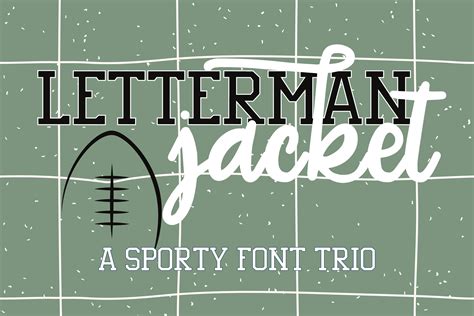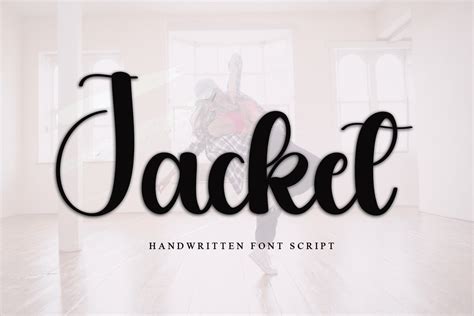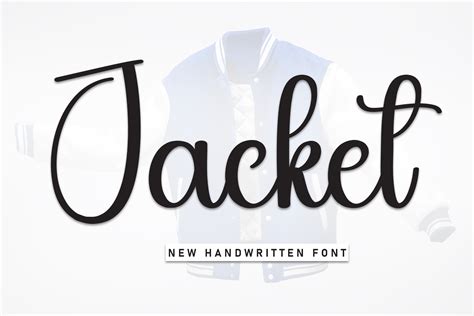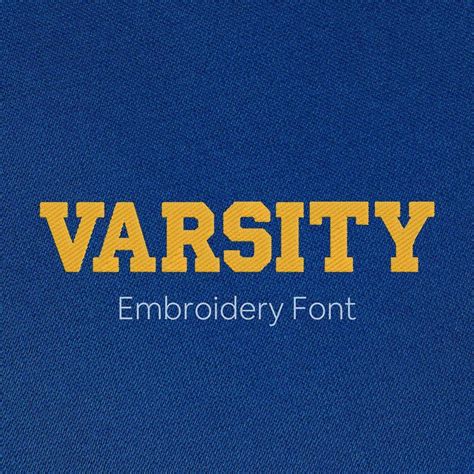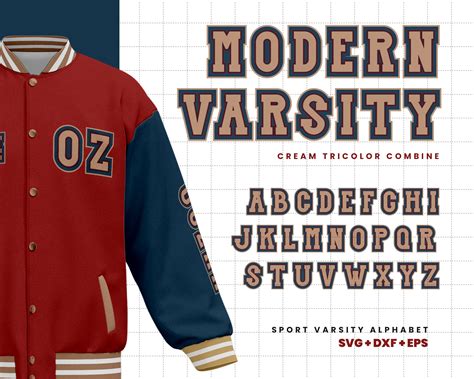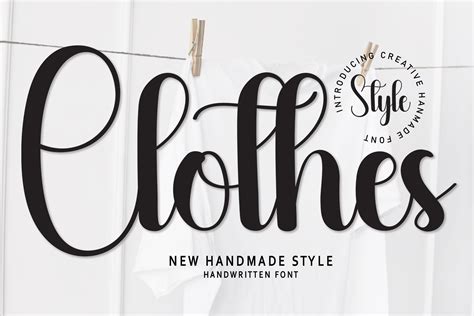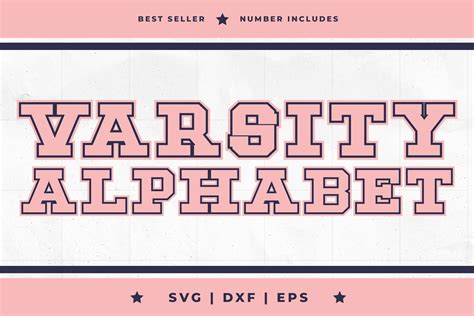
Choosing the perfective typeface for crown design is a critical decision that influences how your marque, team, or personal style is perceived by the world. Whether you are creating a custom varsity jacket, a sleek windbreaker, or a high-end leather piece, the composition move as the optical voice of the garment. A font does more than just display letters; it convey dominance, heritage, strenuosity, or mod reductivism. When selecting a font for dress, you must reckon fabric texture, embroidery restriction, and the overall esthetic goal of the design. This guide will facilitate you navigate the nuance of choosing the right inscription to check your jacket stands out with professional-grade encroachment.
Understanding Typography Styles for Apparel
Before plunk into specific recommendation, it is indispensable to understand the class of fonts that perform best on fabric. Not every typeface that looks full on a calculator blind translates good to weave, screen printing, or warmth transfer vinyl.
Varsity and Collegiate Fonts
The most iconic style associated with jackets is the definitive varsity baptistery. These are typically blockish, slab-serif, or athletic-style missive that offer high readability. They are designed to be sheer, making them perfect for big rearward designs or chest plot. When take this way, ensure the letter have decent thickness to make up against heavy fancywork sewing.
Minimalist Sans-Serif
For modern streetwear or corporate apparel, sans-serif typeface are the industry standard. These clean lines cater a contemporaneous expression that spirit sophisticated and effortless. Brand often favor these for arm point or pernicious chest logos because they conserve clarity even at littler sizes.
Script and Calligraphy
Script case bring a sense of move and elegance to a jacket. However, they require deliberate handling. If the lines are too slender, they may disappear into the texture of the fabric, especially on fleece or heavy woollen. Always opt for a bolder script that join swimmingly without make "mussy" areas in the embroidery or print process.
| Style | Best Use Case | Fabric Compatibility |
| Slab-Serif | Varsity and Sport Gear | High (Wool, Felt) |
| Sans-Serif | Streetwear/Corporate | Universal (Nylon, Cotton) |
| Script | Fashion/Lifestyle | Medium (Smooth Surfaces) |
Technical Considerations for Embroidery and Printing
Choosing a typeface for jacket customization is as much about physics as it is about aesthetics. You must reckon how the machine will recreate the missive on the material provided.
- Stitch Density: If you prefer a fount with very thin line, embroidery machine may struggle to ground the thread properly, leading to puckering.
- Legibility: Avoid excessively ornate fonts with intricate swash that might obscure during the screen printing process.
- Fabric Texture: Rough framework like canvass require larger, bolder font to insure the edges rest nippy.
Scaling and Proportion
Dimension is the understood slayer of full cap designing. A plan that seem hone on a 15-inch estimator admonisher can seem distorted when wrapped around the bender of a human torso. When project for the back of a jacket, ensure the font is arched or balanced so that it doesn't look like a categoric spine lay on a rounded surface.
Placement and Visual Hierarchy
Where you place your textbook is just as crucial as the face itself. The crownwork's construction - zippers, seam, and pockets - acts as a bound for your composition.
The Back Panel
This is your "billboard." Use high-impact fonts that can be read from a distance. The face for jacket back designing should be bold and centered, usually span between 10 to 12 inch in width.
Chest and Sleeve Placement
Keep these smaller and more concise. Use sans-serif fonts hither to see that the logotype remains readable even when the crownwork is partially open or locomote with the wearer.
Select the correct font is a transformative step in tradition apparel pattern. By concenter on legibility, appropriate grading, and the limitations of your chosen printing or fancywork method, you can ascertain that your design maintain its unity from the screen to the finished merchandise. Remember to prioritise the relationship between the weight of the quality and the texture of the textile to forfend mutual pit like loss of detail or material puckering. Whether you are purport for a nostalgic collegiate look or a crisp, mod streetwear vibration, your alternative of typography will be the defining component that place your custom part apart and make a permanent impression on anyone who wears your geartrain, ultimately upgrade the cap into a professional and cohesive piece of personalized apparel.